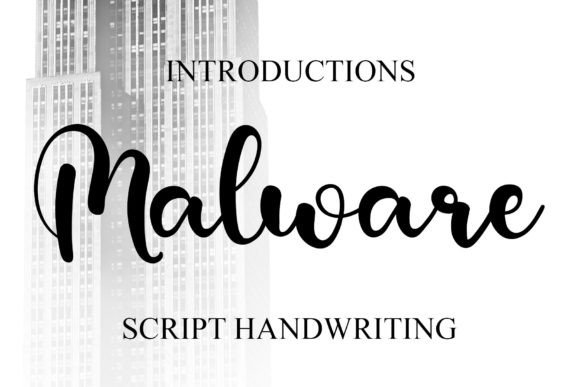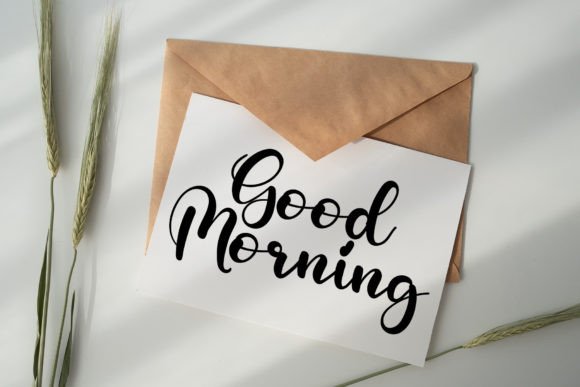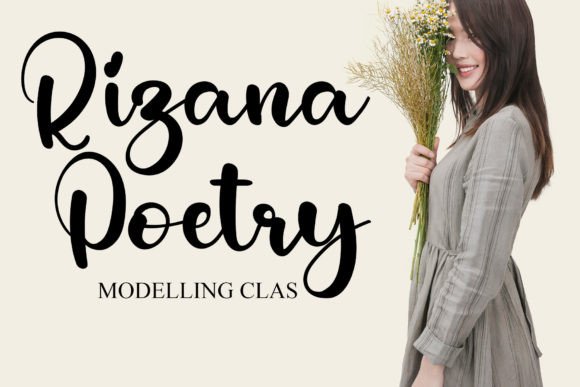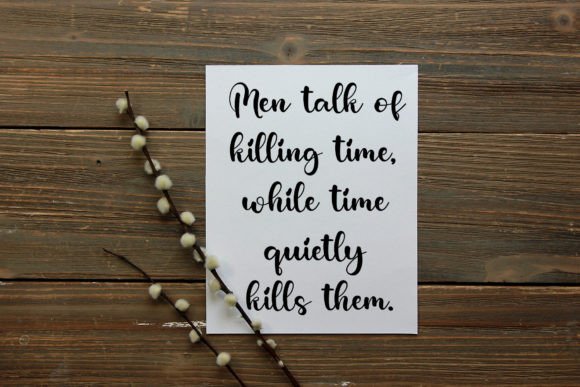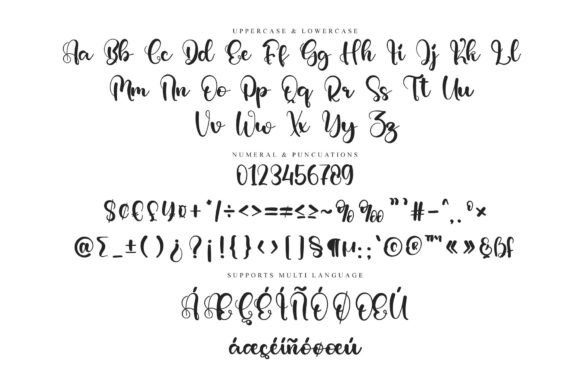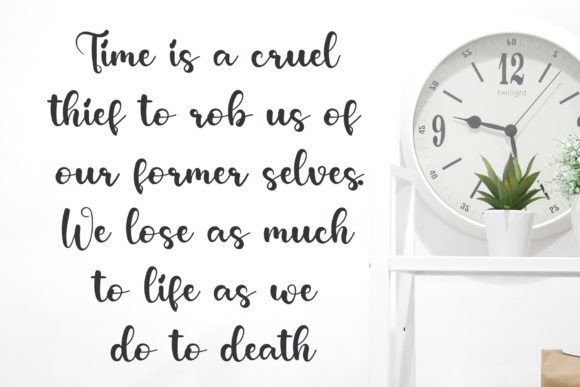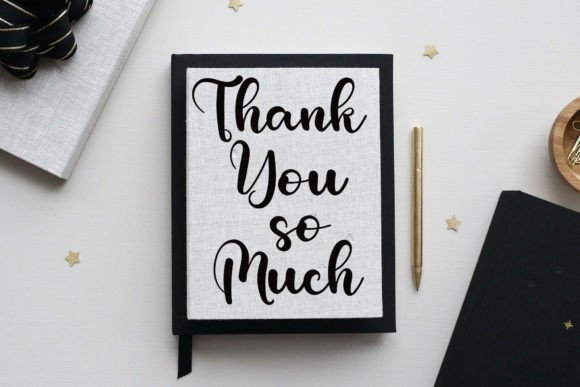
Malware Font
What Is Malware Font?
Malware Font is a striking modern display typeface designed to command attention and add a bold edge to your creative projects. Its sharp lines, strong character shapes, and contemporary vibe make it a standout choice for designs that need to feel impactful, innovative, or rebellious.
Whether you’re crafting a tech-inspired logo or a daring poster design, Malware delivers a look that’s unforgettable and full of attitude.
Malware Font adapts seamlessly to a wide range of bold, modern applications. For example, it’s perfect for branding projects that require a powerful visual identity. Tech startups, gaming companies, and creative agencies can all benefit from Malware’s dynamic style.
Posters, banners, and event promotions also shine with Malware’s high-impact aesthetic. The font’s strong lines and edgy presence make it ideal for grabbing attention in crowded spaces.
Album covers, merchandise, and apparel designs are other natural fits for Malware. Its distinctive forms add a sense of innovation and energy that helps products stand out.
In digital media, Malware looks great in website headers, hero sections, and social media graphics. It sets a contemporary tone that’s perfect for brands with a progressive, boundary-pushing identity.
Why Should You Choose Malware Font?
One of Malware’s strongest advantages is its bold readability. Every letter is crafted to remain clear even at small sizes, while the unique styling ensures your text stands out.
The font pairs well with clean sans-serif typefaces, making it easy to create layouts that feel modern and cohesive.
Designers love that Malware saves time by offering an immediately polished, impactful look without needing extensive adjustments.
Malware Font brings energy, strength, and innovation to any project. Its assertive character shapes create a visual impact that commands attention and communicates confidence.
Even minimalist compositions gain a strong focal point when you use Malware. Whether you’re designing for print or digital, this font adapts easily and elevates your aesthetic.
Using a distinctive display font like Malware shows that you value modern, forward-thinking design. Clients and customers will notice the bold style, helping your work stand out.
Malware Font is more than a display typeface—it’s a powerful tool for creating unforgettable designs. From tech branding and event posters to social media graphics and merchandise, this font adapts to countless uses and always leaves a lasting impression.